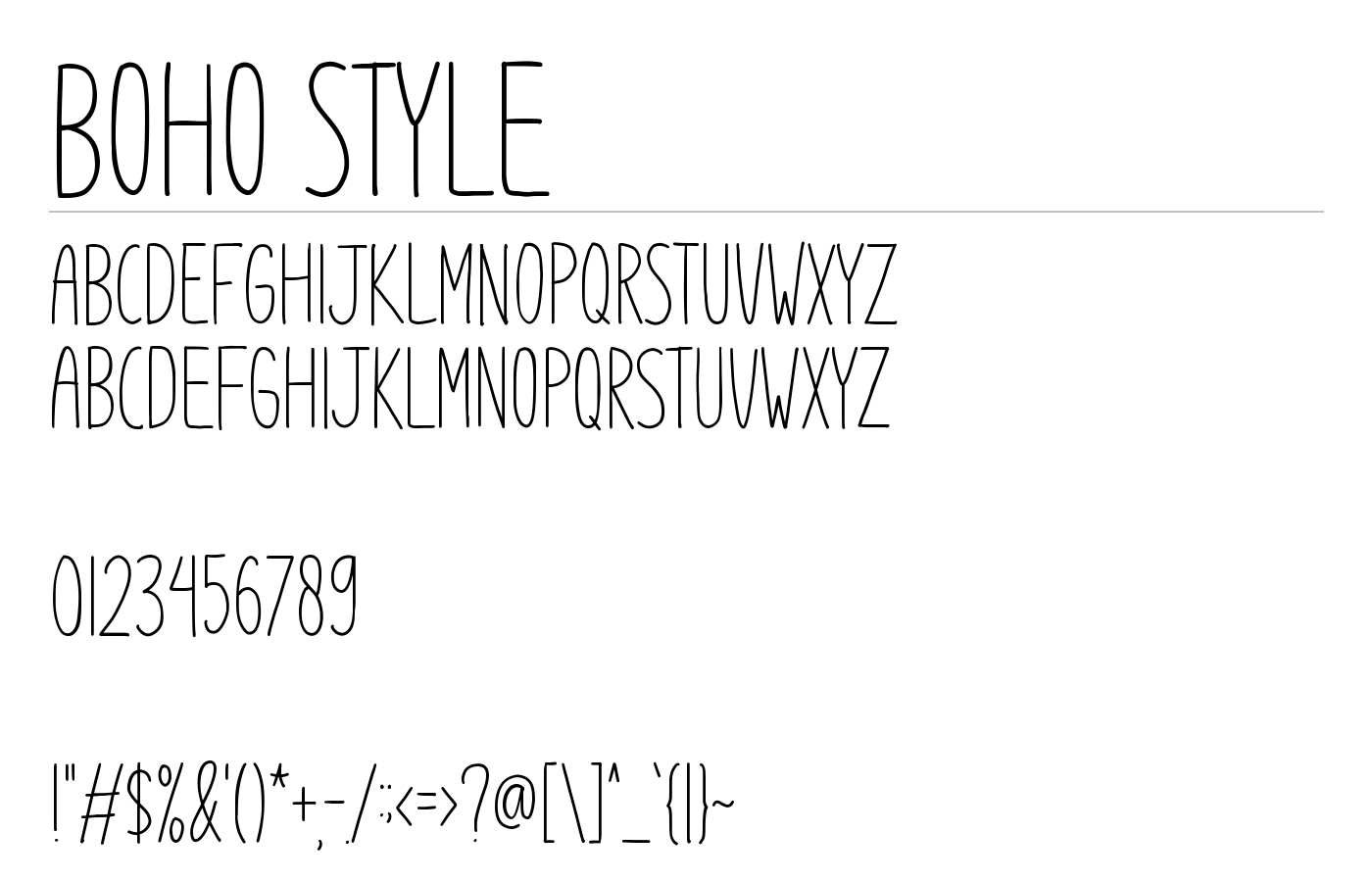
Boho Style Font is a narrow, tall sans serif typeface with a playful and hand-drawn feel. Its thin strokes and slightly irregular letterforms give it a casual, whimsical vibe that works well for creative projects, informal branding, and artistic designs. This font is ideal for headlines, logos, and invitations where a personal and unique touch is desired.
Boho Style Font
About Boho Style Font
| Font family | Boho Style Font |